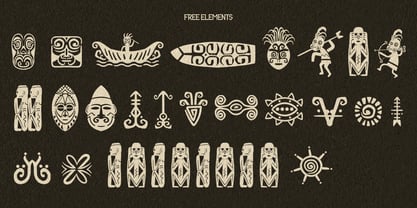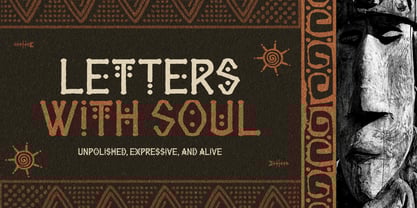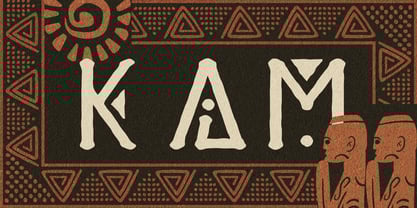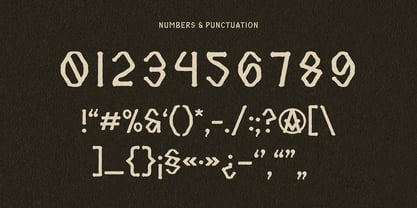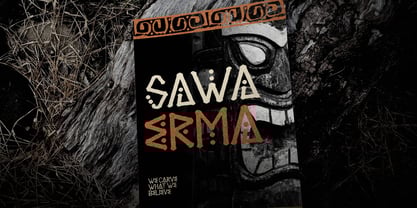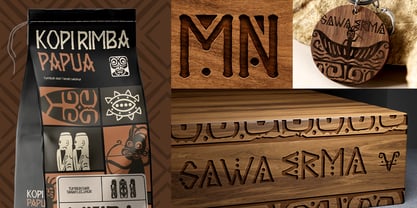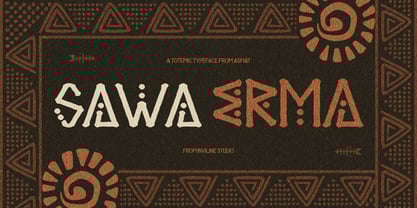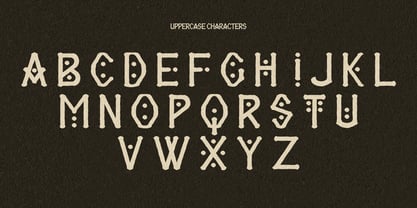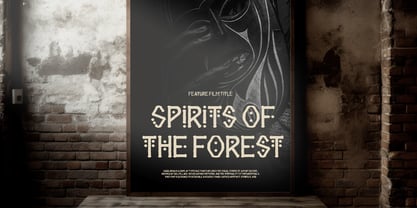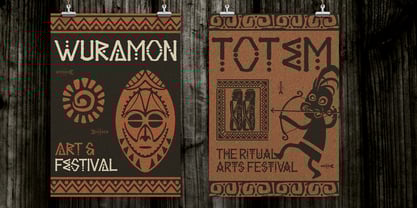
Sawa Erma
by Inviline
The Sawa Erma Font Family was designed by Virgiawan Listanto and published by Inviline. Sawa Erma contains 1 styles. More about this family
Sawa Erma is a totemic typeface inspired by the raw artistic expression of the Asmat tribe in Papua. Crafted with textured strokes and symbolic detailing, this font embodies the spirit of ritual, storytelling, and ancestral power. Every letterform feels hand-carved, evoking sacred woodwork, traditional tattoos, and ceremonial motifs. Sawa Erma is perfect for cultural posters, folklore books, tribal merchandise, or branding that celebrates indigenous identity. It’s a bold tribute to ancient visual language—raw, expressive, and deeply rooted in heritage. Add mystique and authenticity to your design with this culturally rich typeface.
Designers: Virgiawan Listanto
Foundry: Inviline